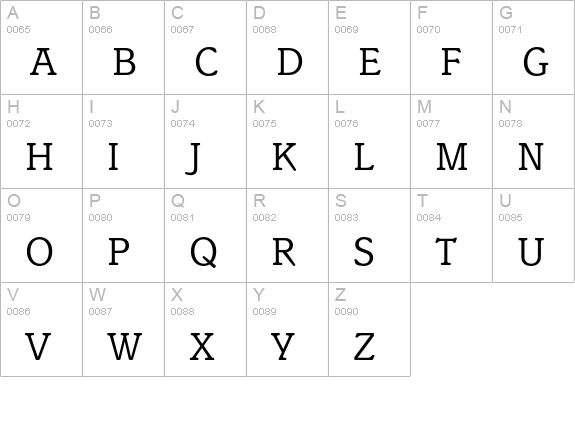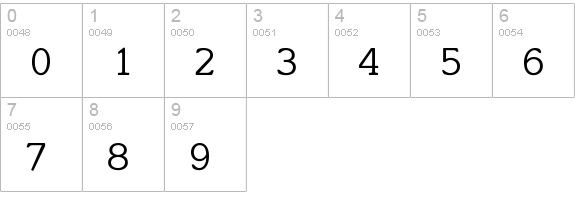
ItaliaEF-Book is a comfortable, highly readable variant in the ItaliaEF typeface family \xE2\x80\x94 well suited to long-form body text, articles, and editorial content.
ItaliaEF-Book is a stunningly beautiful font that effortlessly captures the essence of elegance and sophistication. With its clean lines and graceful curves, this font exudes a timeless charm that is sure to elevate any design project. One of the most remarkable aspects of ItaliaEF-Book is that it is completely free to use. Whether you are a professional designer or a casual enthusiast, you can freely access and download this font at FontsMarket.com. This means that you can harness the power of ItaliaEF-Book without any financial burden, making it the perfect choice for any budget-conscious individual or organization. The versatility of ItaliaEF-Book is truly unmatched. Its legibility and readability make it ideal for both print and digital applications, ensuring that your message will be conveyed with clarity and impact. From elegant invitations and branding materials to eye-catching headlines and editorial layouts, ItaliaEF-Book will effortlessly add a touch of sophistication and refinement to any project. Its extensive character set includes a wide range of special characters and symbols, allowing you to express your creativity and add a personal touch to your designs. Whether you're designing a logo, creating a poster, or crafting a website, ItaliaEF-Book offers endless possibilities for customization and artistic expression. Featuring a well-balanced weight and spacing, ItaliaEF-Book ensures optimal legibility even at small sizes, making it perfect for body text as well as headlines. The attention to detail in the design of this font is truly exceptional, resulting in a smooth and harmonious reading experience that will captivate your audience. ItaliaEF-Book is not just a font, it is a work of art that has been crafted with passion and dedication. Its timeless elegance and versatility make it an invaluable addition to any designer's toolkit. So why wait? Download ItaliaEF-Book for free at FontsMarket.com and discover the endless creative possibilities that await you.